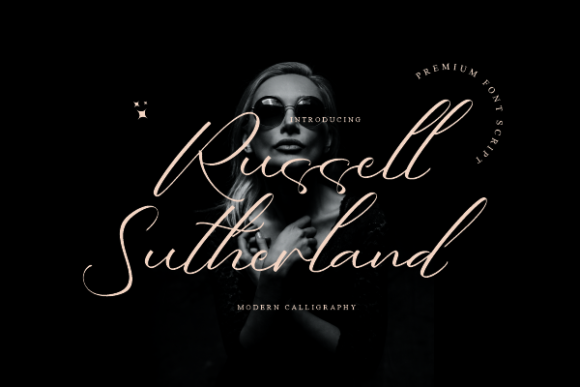
Step into the world of enchanting typography with Russell Sutherland Font, a masterpiece crafted to captivate and inspire. This exquisite handwritten font dances across your screen, merging the elegance of calligraphy with a modern flair. It's the perfect choice for web designers and content creators seeking to elevate their projects to new heights.
Let Russell Sutherland Font weave its enchanting spell on your website copy, brochures, social media posts, and more. Its sophisticated strokes and graceful curves will add a touch of refinement and luxury to your creations. Imagine your words flowing effortlessly, each letter a work of art, inviting readers to immerse themselves in your enchanting narrative.
With Russell Sutherland Font, the boundaries of creativity dissolve. Whether you're crafting elegant invitations, enchanting logos, or captivating marketing materials, this font will transform your designs into masterpieces. It's the key to unlocking a world of endless possibilities, where your imagination knows no bounds.
Don't settle for ordinary fonts. Embrace the extraordinary with Russell Sutherland Font. Let it become your secret weapon, empowering you to create designs that resonate with hearts and minds. Discover the allure of this exquisite creation and elevate your projects to the pinnacle of excellence.